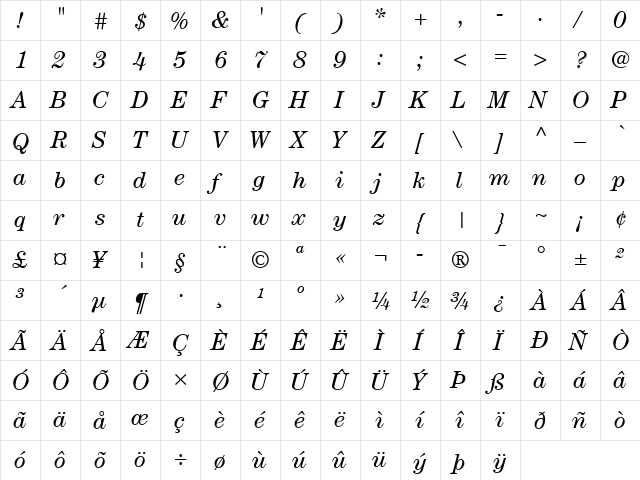
ITCCentury LT Book Italic
Design Context for ITCCentury LT Book Typeface
ITCCentury LT Book takes a measured approach to typography — its balanced proportions and neutral character make it a reliable workhorse for both digital and print work. The slanted form adds forward momentum and visual energy. Its slender proportions lend an understated elegance to any composition.